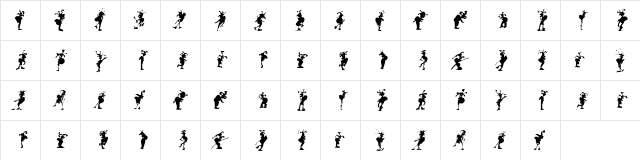
PunchBETA Regular
Design Context for PunchBETA Typeface
PunchBETA is a composed and adaptable typeface that performs quietly and consistently across a wide range of design contexts.